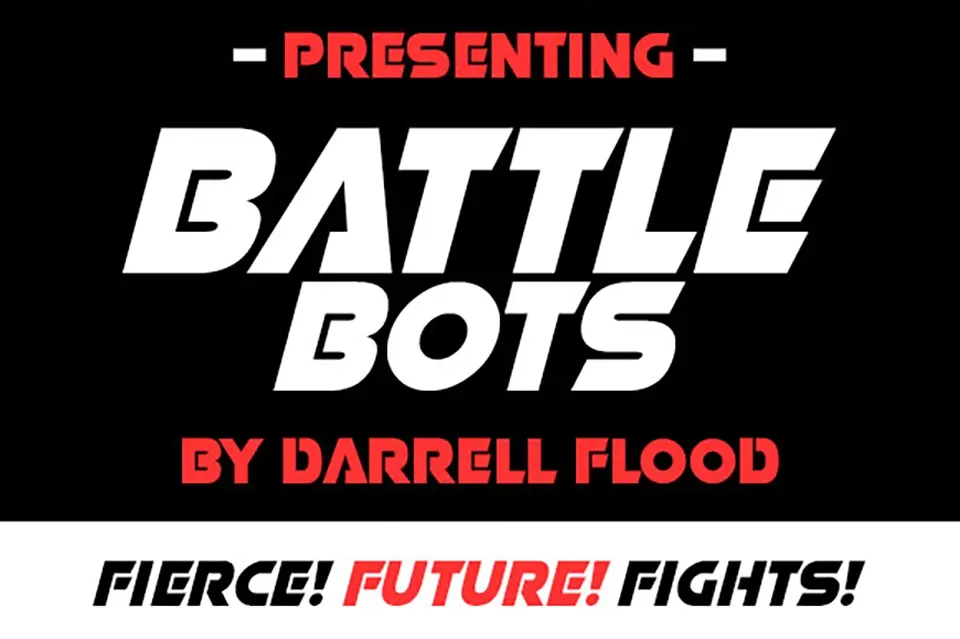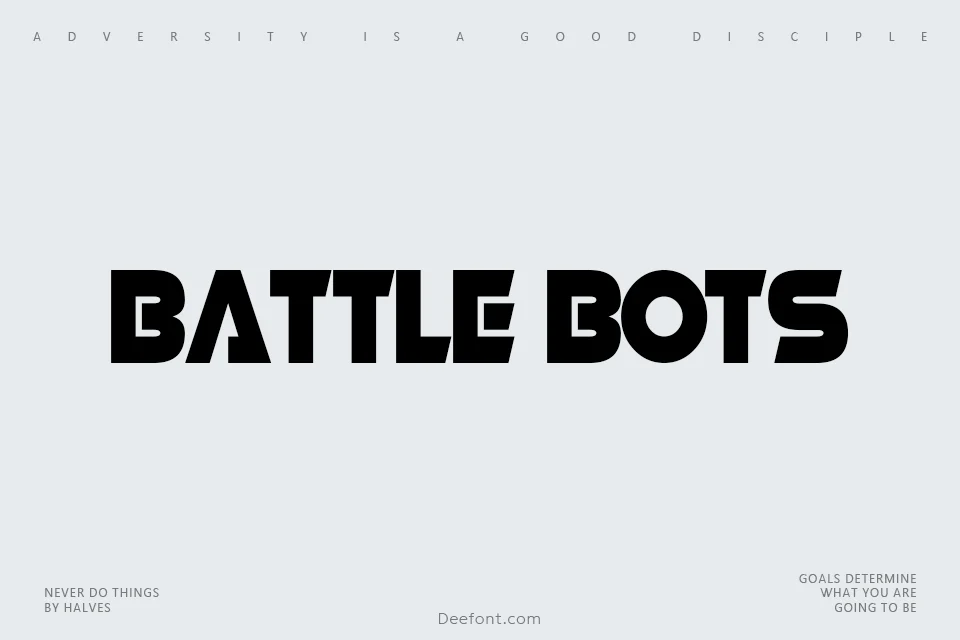
Battle Bots Font
Battle Bots is a bold and futuristic display font that draws inspiration from the world of robotics and sci-fi combat. This hard-hitting typeface features sharp edges, angular shapes, and geometric letterforms that create a strong, powerful appearance perfectly capturing the essence of mechanical warfare and high-tech battles. With its slick modern style and techno aesthetic, Battle Bots excels in designing graphics, logos, titles, and headlines for technology and science-themed projects, video games, action movies, and any creative work requiring a tech-inspired edge. The font's dynamic and eye-catching design makes it an ideal choice for projects emphasizing robotic, futuristic, or cyberpunk elements, delivering a sense of innovation and modernity to your designs.